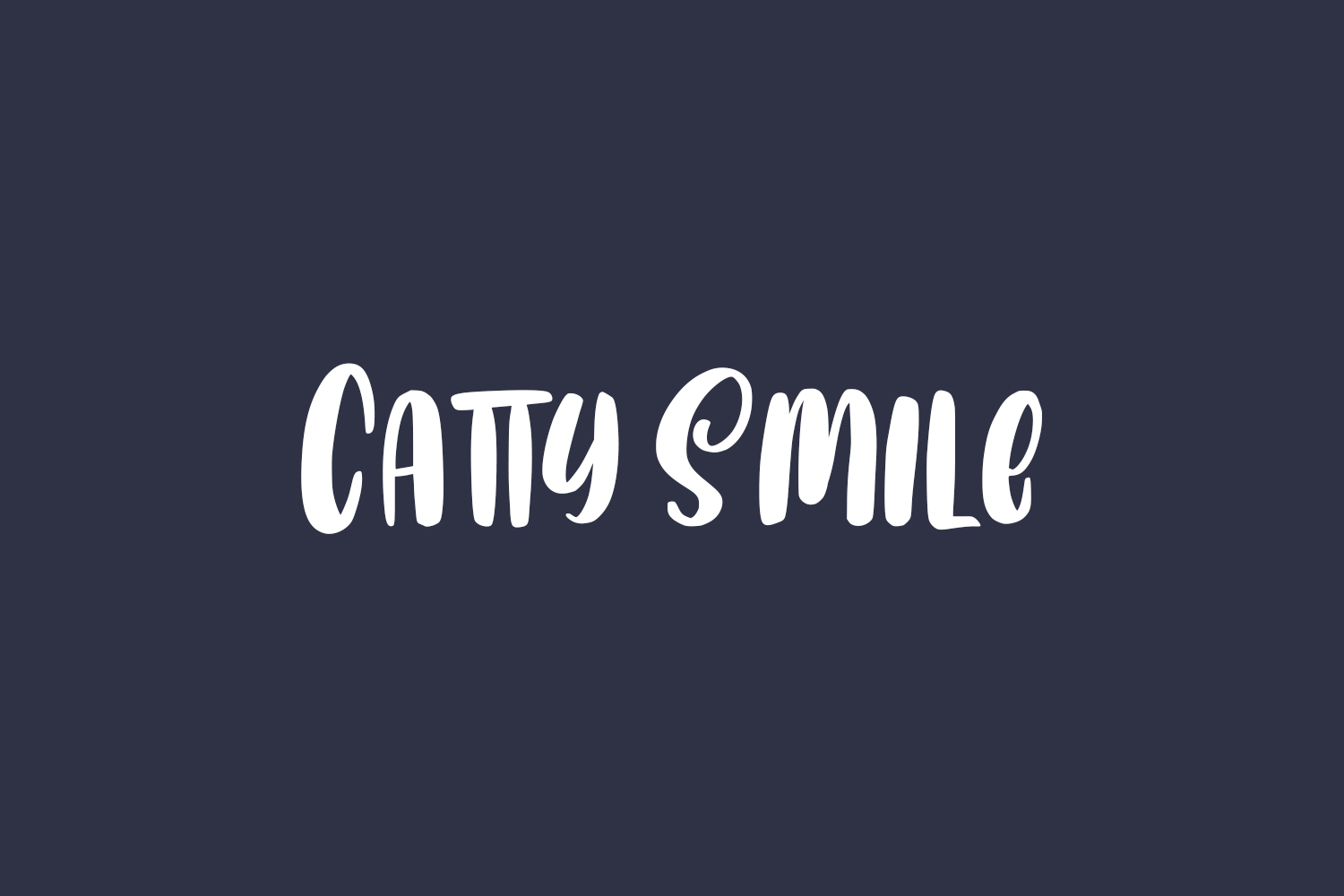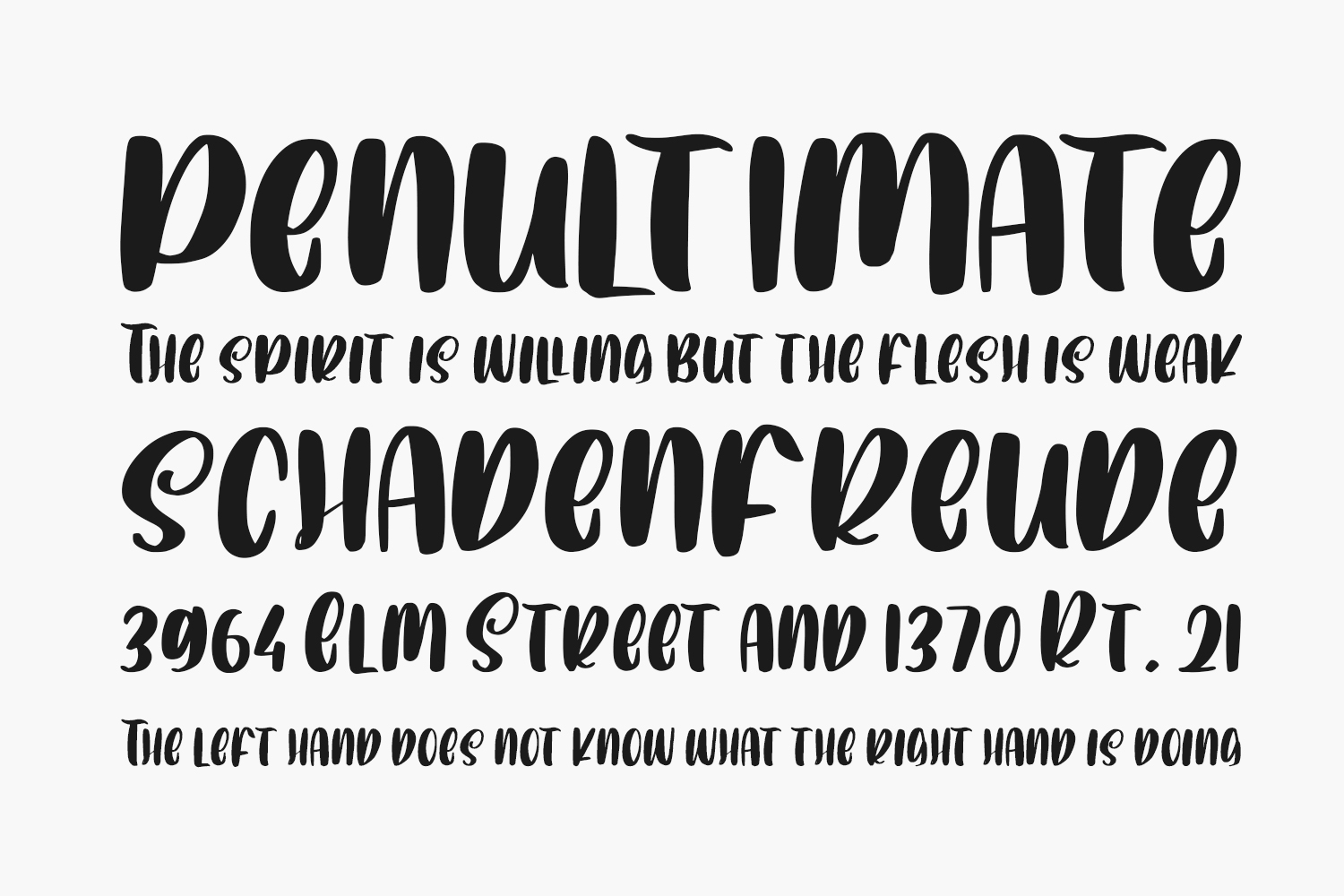
Catty Smile Free Font is a cute and quirky display font. It will add an incredibly joyful touch to your designs. This font is perfect for children-themed designs, especially when combined with bright colors. Catty Smile Free Font was designed by FatmaStudio and is free for personal use only. Please purchase the full version for commercial use.